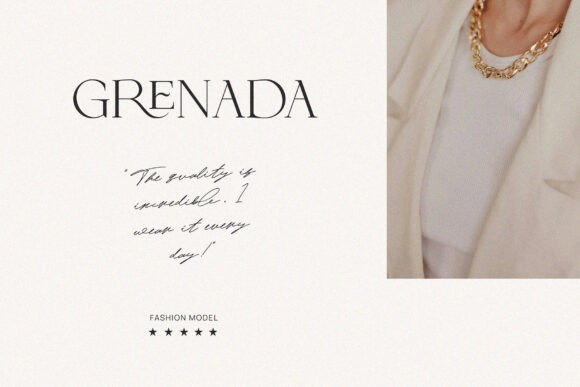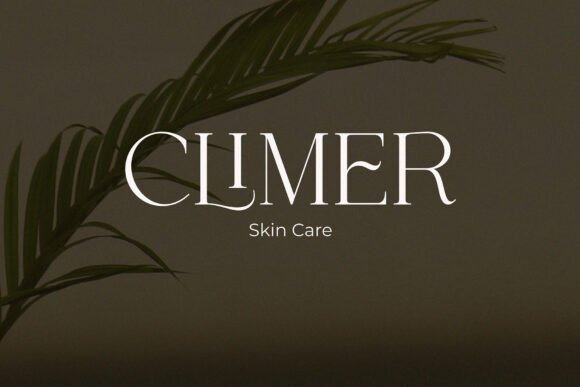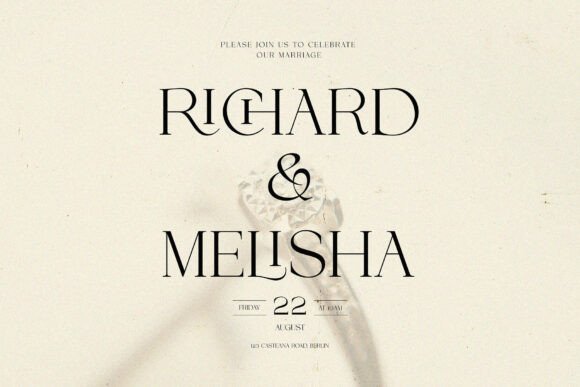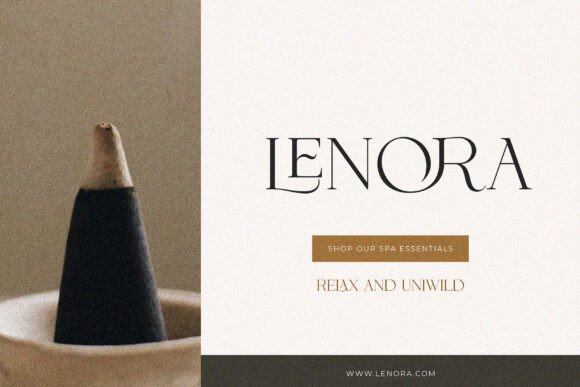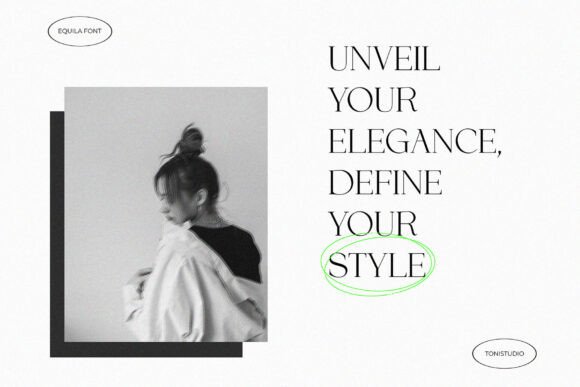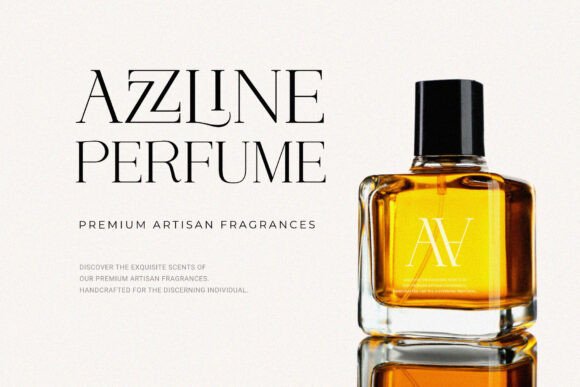
Introducing Equila Font: Elevate Your Designs with Elegance and Sophistication
In the world of typography, fonts play a crucial role in conveying the tone and personality of a brand or design. For designers and crafters seeking to add a touch of luxury and sophistication to their work, Equila Font is an exceptional choice. This stunning display typeface boasts high contrast and elegant curves, making it perfect for a wide range of applications, from elegant logos to modern advertising designs.
The Characteristics of Equila Font
Equila Font is characterized by its beautiful, flowing curves that exude a sense of class and refinement. Despite its ornate appearance, the font maintains a sense of composure, making it suitable for a variety of design projects. The high contrast between the thick and thin strokes adds to the font’s elegance, creating a visually appealing effect that is sure to captivate audiences.
OpenType Features and Style Variations
One of the standout features of Equila Font is its inclusion of OpenType features, which provide users with a range of style variations to choose from. This allows designers to experiment with different forms and alternatives, giving them the flexibility to tailor the font to their specific needs. With Equila Font, users can create unique and eye-catching designs that reflect their brand’s personality and style.
Ideal Applications for Equila Font
Equila Font’s versatility makes it suitable for a wide range of design applications, including:
• Elegant & Luxurious Logos: Create a lasting impression with a sophisticated logo that exudes luxury and refinement.
• Classy Editorial Designs: Add a touch of elegance to your editorial designs, such as magazines, newspapers, and books.
• Women’s Magazines: Equila Font is perfect for women’s magazines, fashion publications, and lifestyle blogs.
• Fashion Brands: Elevate your fashion brand’s visual identity with a font that embodies style and sophistication.
• Cosmetic Brands: Create a luxurious and high-end feel for your cosmetic brand with Equila Font.
• Fashion Promotions: Make a statement with eye-catching fashion promotions, such as posters, flyers, and brochures.
• Modern Advertising Designs: Add a touch of elegance to your modern advertising designs, including billboards, magazine ads, and digital campaigns.
• Invitation Cards: Create stunning invitation cards for special events, such as weddings, galas, and formal gatherings.
• Art Quotes: Add a touch of sophistication to your art quotes, making them perfect for display in homes, offices, and public spaces.
• Home Decor: Use Equila Font to create beautiful home decor designs, such as wall art, typographic prints, and decorative accessories.
• Book Titles/Covers: Elevate your book titles and covers with a font that exudes elegance and sophistication.
• Special Events: Create memorable designs for special events, such as conferences, festivals, and charity events.
Why Choose Equila Font?
Equila Font offers a unique combination of elegance, sophistication, and versatility, making it an excellent choice for designers and crafters. With its high contrast and beautiful curves, this display typeface is sure to elevate your designs and add a touch of luxury to your brand or project.
Whether you’re a seasoned designer or a crafty DIY enthusiast, Equila Font is an excellent addition to your typographic collection. Its range of styles and OpenType features provide endless possibilities for creative expression, allowing you to bring your vision to life in a unique and captivating way.
In conclusion, Equila Font is a stunning display typeface that is sure to impress. Its elegant curves, high contrast, and range of styles make it perfect for a wide range of design applications. Whether you’re looking to create a luxurious logo, elegant editorial design, or sophisticated advertising campaign, Equila Font is the perfect choice.